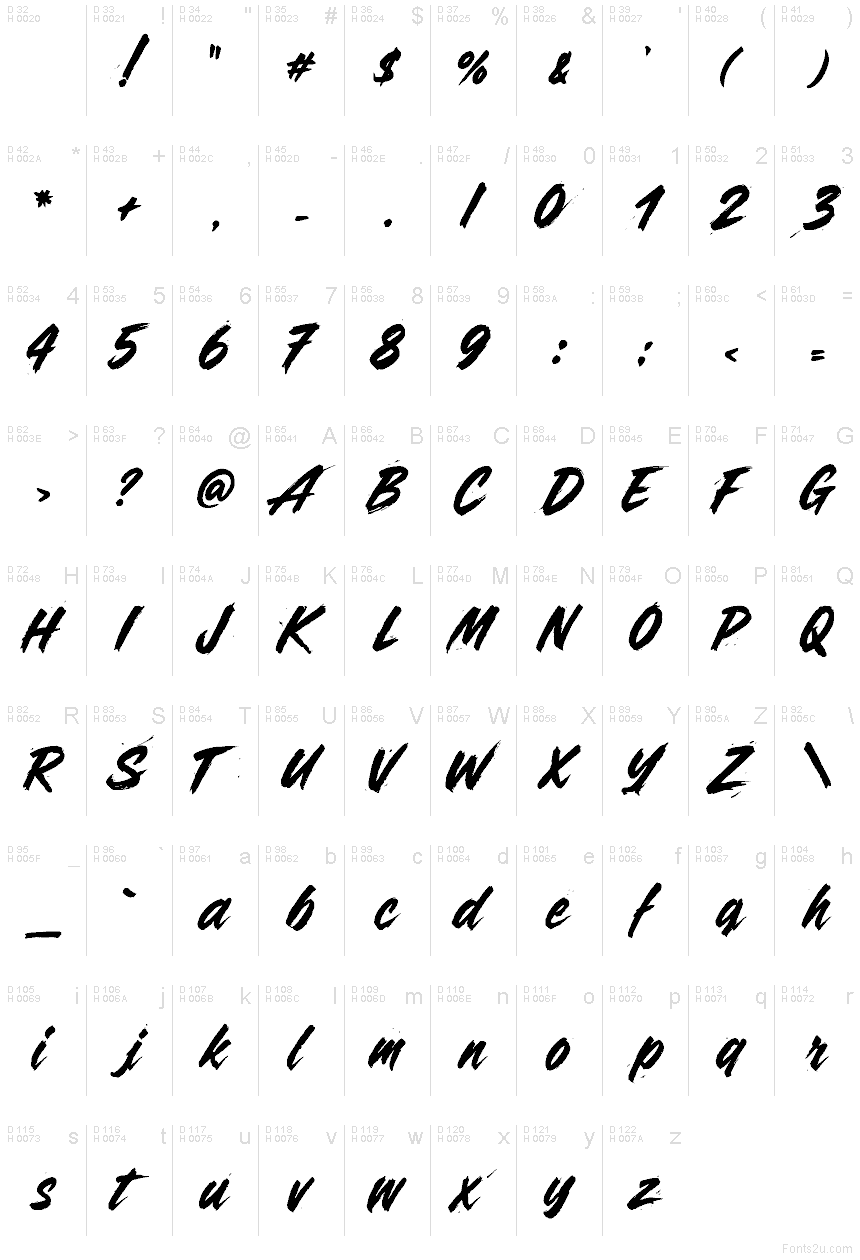
Driftline
Driftline font by BlackFridayFont FMF is a free brush script font. It surges forward with a racing slant, inky downstrokes, and ragged, dry-brush edges that look pulled straight from a loaded paintbrush. The texture sells motion—thick swipes, quick lift-offs, and splashy terminals—while the tight rhythm keeps words feeling cohesive and loud.
Using Driftline, headlines snap with street-level grit and sport-ready energy. It shines on streetwear logos, action posters, album art, beverage packaging, YouTube thumbnails, and event branding. Keep it big for maximum texture and add a touch of tracking. For body copy, pair this free font with a clean condensed sans to let the brushwork lead.